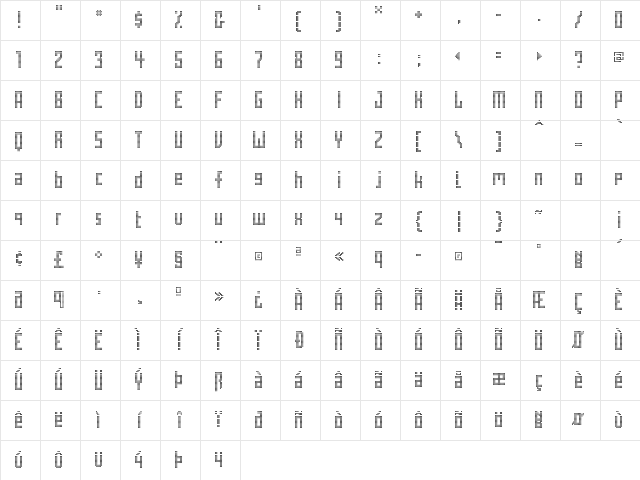
Pop Regular
Copyright: Copr. 1992 Neville Brody & The Font Bureau, Inc.
Foundry: Copr. Neville Brody & The Font Bureau, Inc
Design Context for Pop
Pop is a composed and adaptable typeface that performs quietly and consistently across a wide range of design contexts.
Who designed the Pop Regular font?
This font was published by Copr. Neville Brody & The Font Bureau, Inc. Check the technical specs section for copyright and designer details.